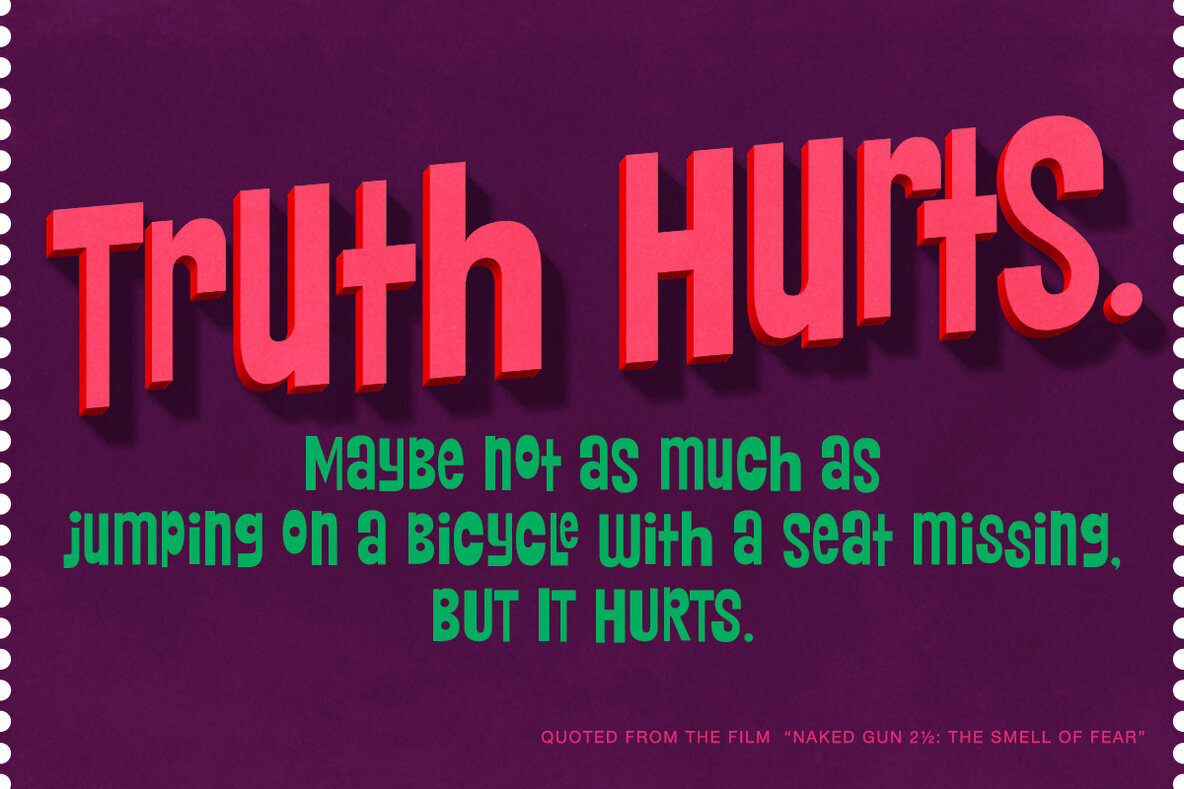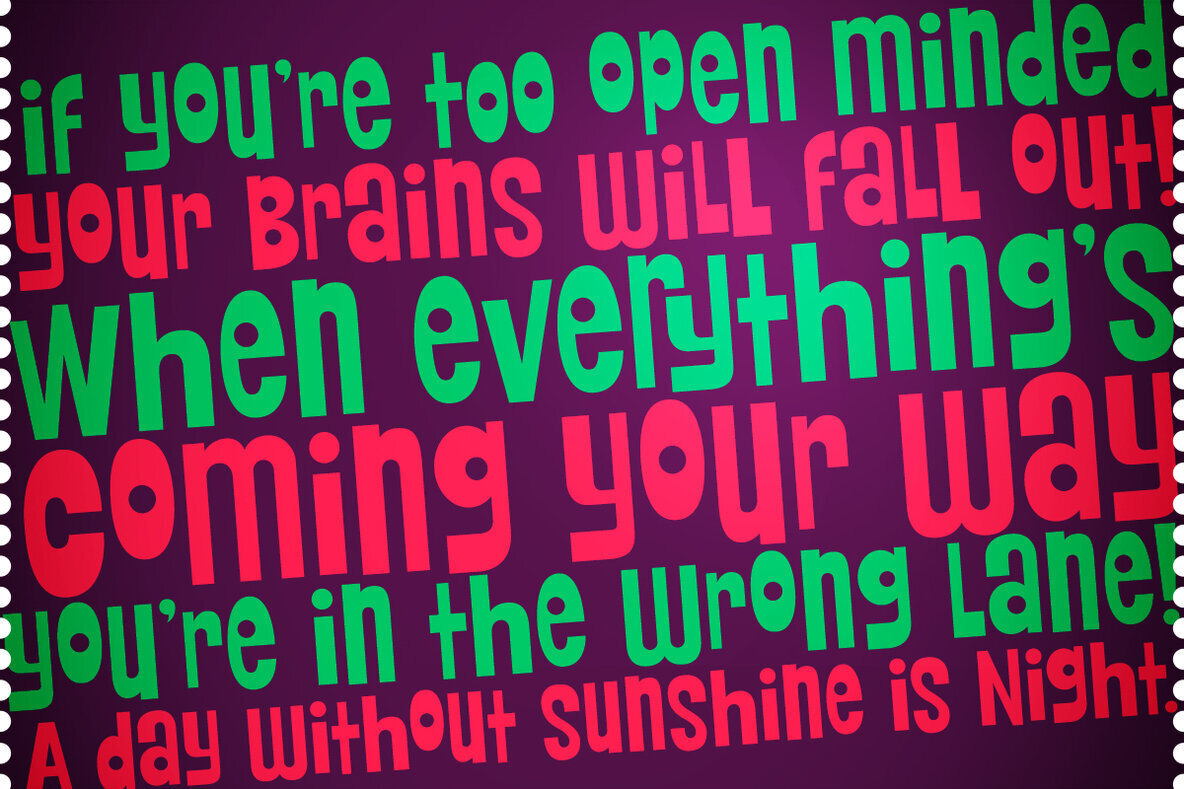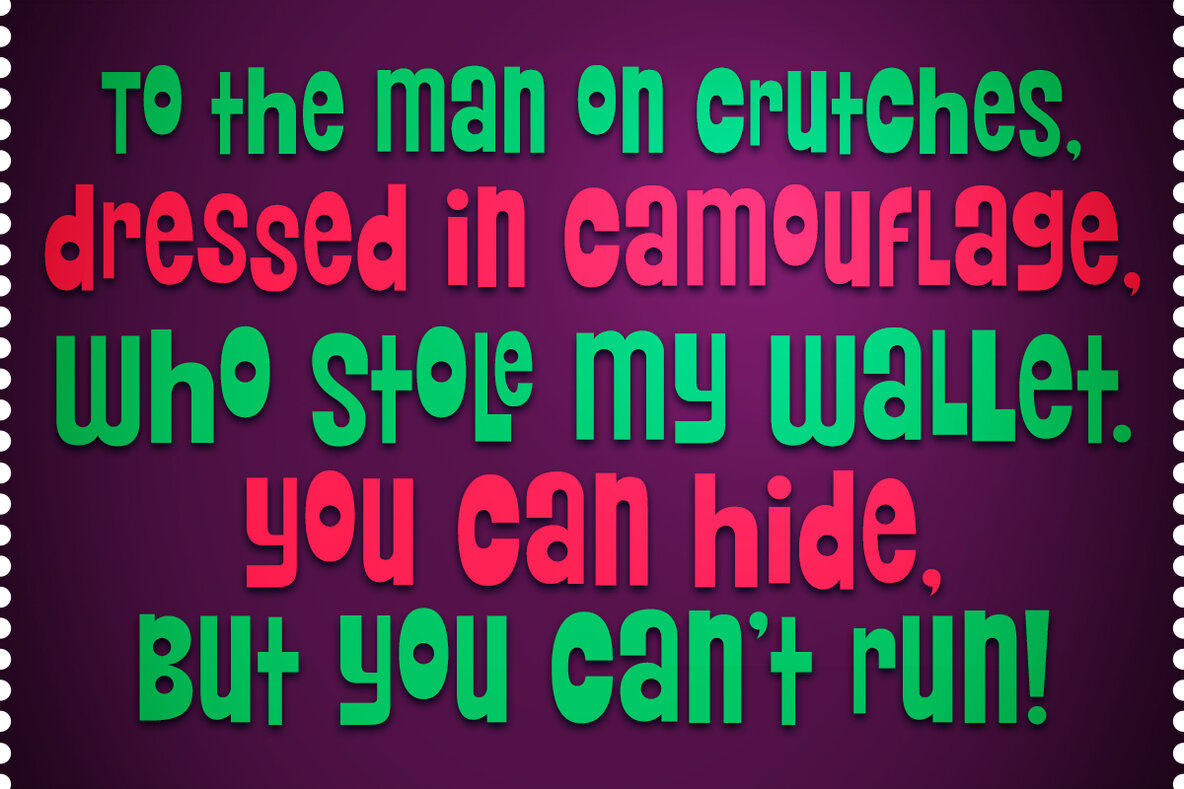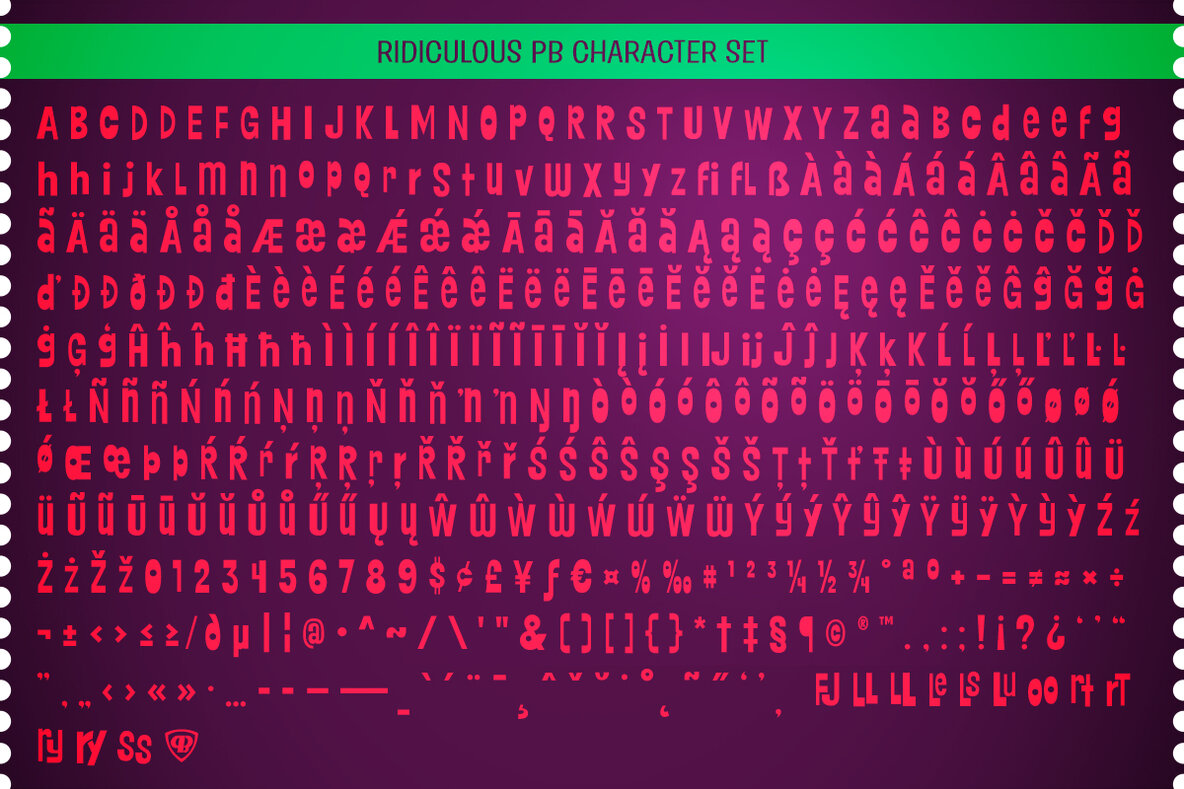
Ridiculous Font
Ridiculous PB Regular
Ridiculous is a whimsical sans-serif font that draws inspiration from the vibrant 1964 film "Yours, Mine, and Ours." It exudes a playful and unpredictable charm, packed with quirky personality. The font features a pseudo unicase character set, which adds an eccentric touch to your projects. With offbeat letter weighting, it creates an engaging and unexpected visual experience.
For those seeking a truly unique and animated typeface, Ridiculous offers auto-substituting ligatures that seamlessly switch between cases, enhancing the erratic allure of your text. The ligature combinations surprise with their unpredictability, making it ideal for any creative endeavor requiring a touch of whimsy and chaos. Perfect for those bold enough to embrace its unpredictable style, Ridiculous stands out as a font that will truly align with its aptly chosen name.